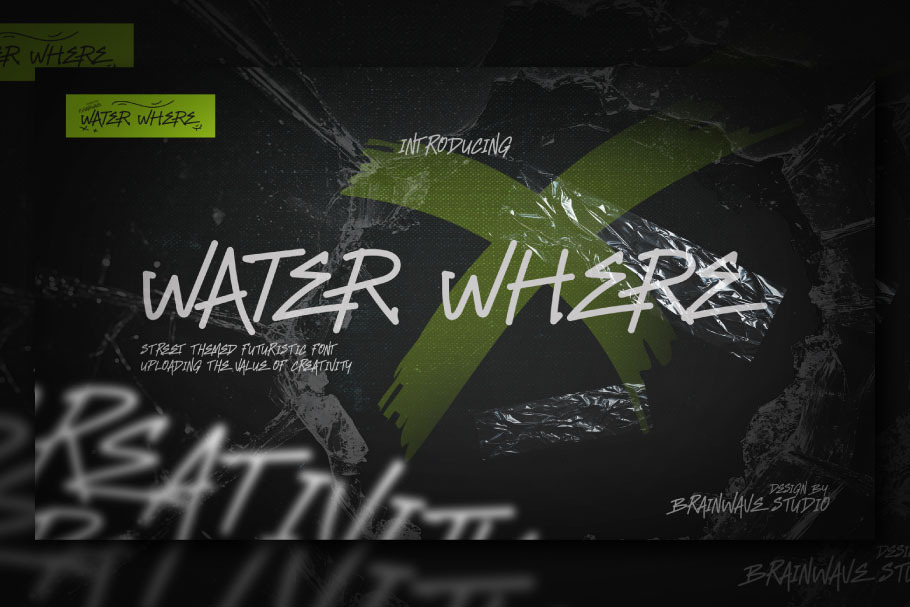
WATER WHERE - Display Font
WATER WHERE is a futuristic streetwear-themed display font that combines modern urban design elements with a futuristic aesthetic. Inspired by the concept of fluidity and dynamic movement, this font exudes a futuristic vibe that connects with streetwear culture and urban life.
The characteristics of "Water Where" might include sleek, sharp letterforms with flowing lines, creating the impression of water flowing across a surface. Its design could feature bold, edgy elements commonly found in streetwear style, such as geometric shapes fused with effects that create depth or a futuristic texture. The letterforms may also incorporate distortion or details reminiscent of digital technology or science fiction worlds.
This font is perfect for designs that emphasize modern, contemporary, and energetic styles, such as streetwear branding, music event posters, merchandise designs, and other visuals that aim to project a cutting-edge and bold feel, with a strong influence from future trends.